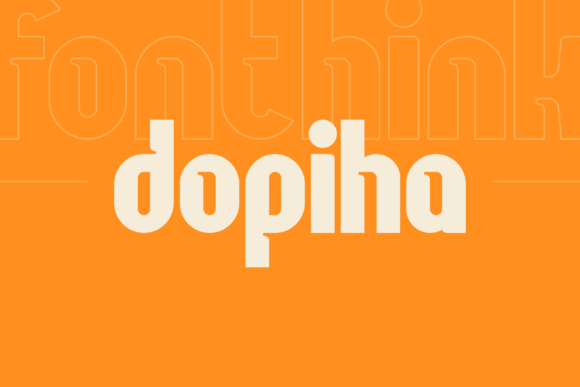
The Perfect Blend of Elegance and Versatility
As a designer, have you ever felt the rush of excitement when you stumble upon the perfect font to elevate your project? The moment when all the elements come together, and your creation takes on a life of its own. For me, that moment came when I discovered the Dopiha Font. Its enchanting curves and meticulous detailing had me hooked from the start.
The Dopiha Font is a typographic masterpiece designed to captivate audiences and make a lasting impression. With its timeless appeal, this font is the ultimate choice for designers seeking to add an elegant touch to their creative endeavors. Whether it’s a logo, advertisement, or branding project, the Dopiha Font is the perfect companion to help you bring your vision to life.
Dopiha Font Key Features
- Font Family: Dopiha Font is a sans-serif font family.
- Unique Characteristics: Dopiha Font features a unique blend of modern and minimalist design elements, making it suitable for various design applications, including logos, signage, and digital interfaces.
- Character Set: Includes a comprehensive character set, including Latin, Cyrillic, and Greek alphabets, as well as various punctuation marks and symbols.
Dopiha Font Review
I recently had the chance to work with the Dopiha font, and I must say, it has its strengths and weaknesses.
- Unique character: Dopiha stands out from the crowd with its quirky and playful design.
- Legibility: The font is highly legible, even at smaller sizes, making it perfect for body text.
- Good for creative projects: Dopiha’s fun and whimsical feel makes it an excellent choice for creative projects like children’s books, advertisements, and more.
- Limited versatility: While Dopiha excels in creative projects, it may not be the best choice for formal or professional settings.
- No italics or bold: The font lacks italics and bold variants, which can limit its usage in certain contexts.
- Not suitable for large blocks of text: Due to its playful nature, Dopiha can become overwhelming when used for extended periods.
I’d say Dopiha is a great addition to any designer’s toolkit, especially for those working on creative projects. While it may not be the most versatile font, it’s perfect for adding a touch of personality to your designs. Just be mindful of its limitations and use it wisely.
For optimal results, use Dopiha Font in designs where you want to create a modern, elegant look.
Experiment with different font sizes, colors, and combinations to find the perfect balance for your design.
Dopiha Font is ideal for:
- Editorial
Alternatives to Dopiha Font for Designers
Playfair Display is a luxurious, high-end font that is perfect for use in high-end branding, magazine titles, and advertising. It features elegant connections between letters and a touch of sophistication. Use Playfair Display when you want to convey luxury, elegance, and refinement.
Comparison to Dopiha Font: While Dopiha Font is also elegant, Playfair Display is more refined and luxurious. It’s ideal for projects that require a high-end feel, whereas Dopiha Font is more versatile and can be used in a variety of contexts.
Bodoni Script
Bodoni Script is a elegant, cursive font that is perfect for use in invitations, wedding stationery, and other special occasions. It features a classic, sophisticated feel that is both elegant and refined. Use Bodoni Script when you want to add a touch of elegance and sophistication to your design.
Comparison to Dopiha Font: While Dopiha Font is also elegant, Bodoni Script is more cursive and flowing. It’s ideal for projects that require a more personal and emotive touch, whereas Dopiha Font is more versatile and can be used in a variety of contexts.